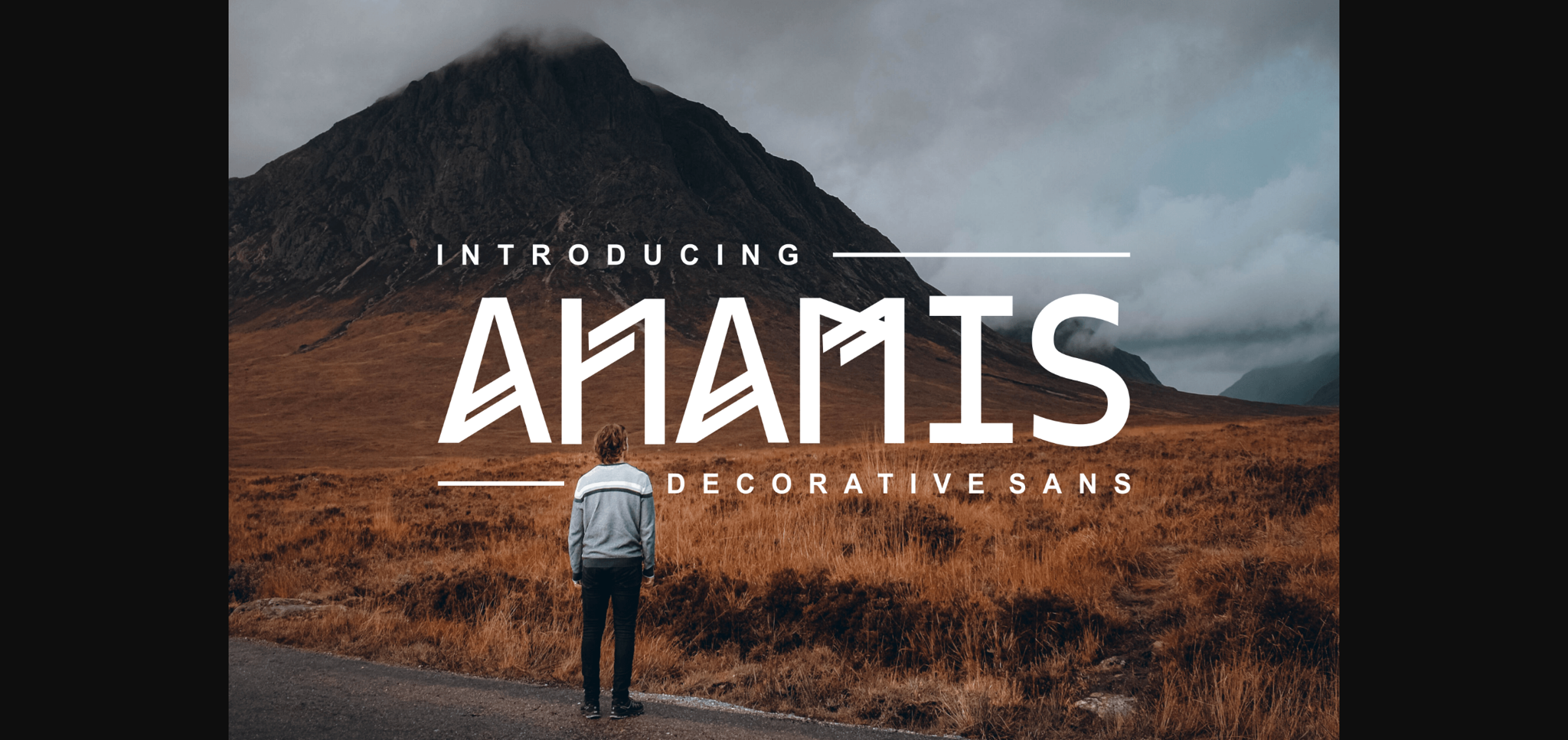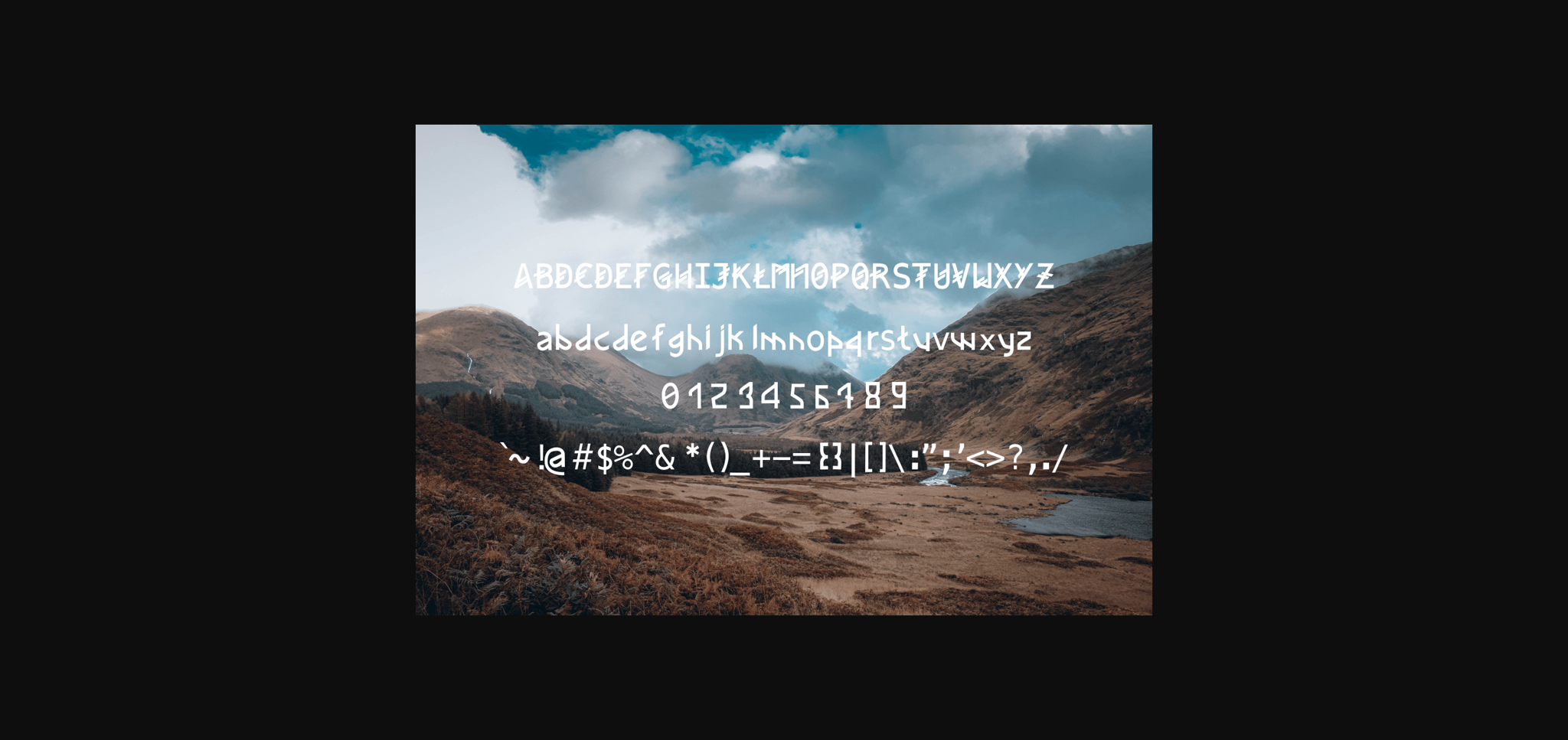
HomeSans Serif FontsAnamis Font Sans Serif Fonts Anamis Font FacebookXPinterestWhatsApp 1 of 4 ... Anamis Font Poster 2... Anamis Font Poster 3... Anamis Font Poster 4... About Anamis Font Anamis is a cool and whimsical sans serif display font. Add it to your most creative ideas and you will be amazed by the outcome generated! DOWNLOAD NOW People also explored Oogety Ornament Font Fijkal Font Flower Shower Font Hello Yustina Script Font Story in Sunday Font Rockline Font Magdalena Font Romanhuff Bold Font Florestimo Font 306 0 TagsAnamisAnamis Font Previous articleBlack Junts FontNext articleAljamain Font LEAVE A REPLY Cancel reply Comment: Please enter your comment! Name:* Please enter your name here Email:* You have entered an incorrect email address! Please enter your email address here Website: Save my name, email, and website in this browser for the next time I comment. Personal Use Free My Shine Personal Use Free Read more about this font Kanza Personal Use Free Read more about this font Septhine Personal Use Free Read more about this font Cheese Matcha Font Personal Use Free Read more about this font BLOG Modern Sans-Serif Fonts That Brands Love in 2025 In 2025, modern sans-serif fonts remain a top choice for brands looking to project clarity, professionalism, and... Best Fonts for T-Shirt Design – Top 2025 Picks How to Cut Any Font on Cricut: Convert a Font to SVG (Free) 5 Fonts That Will Dominate Design Trends in 2026